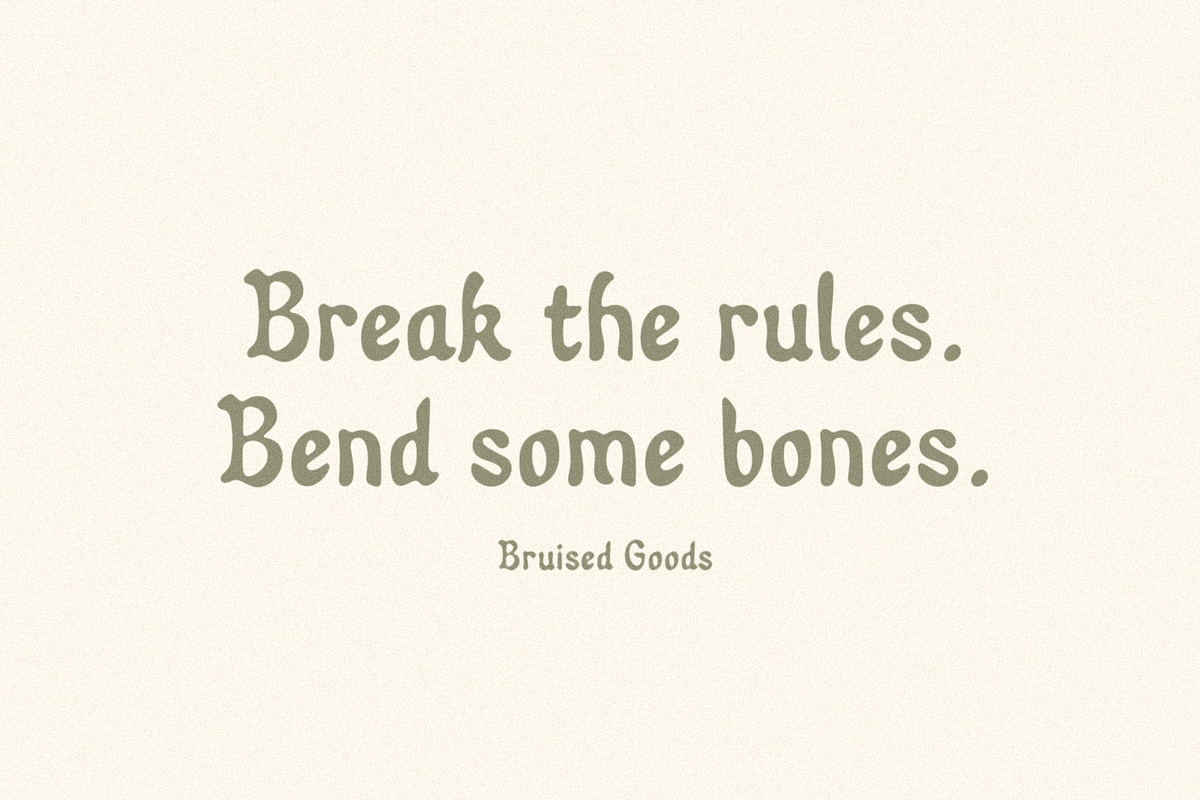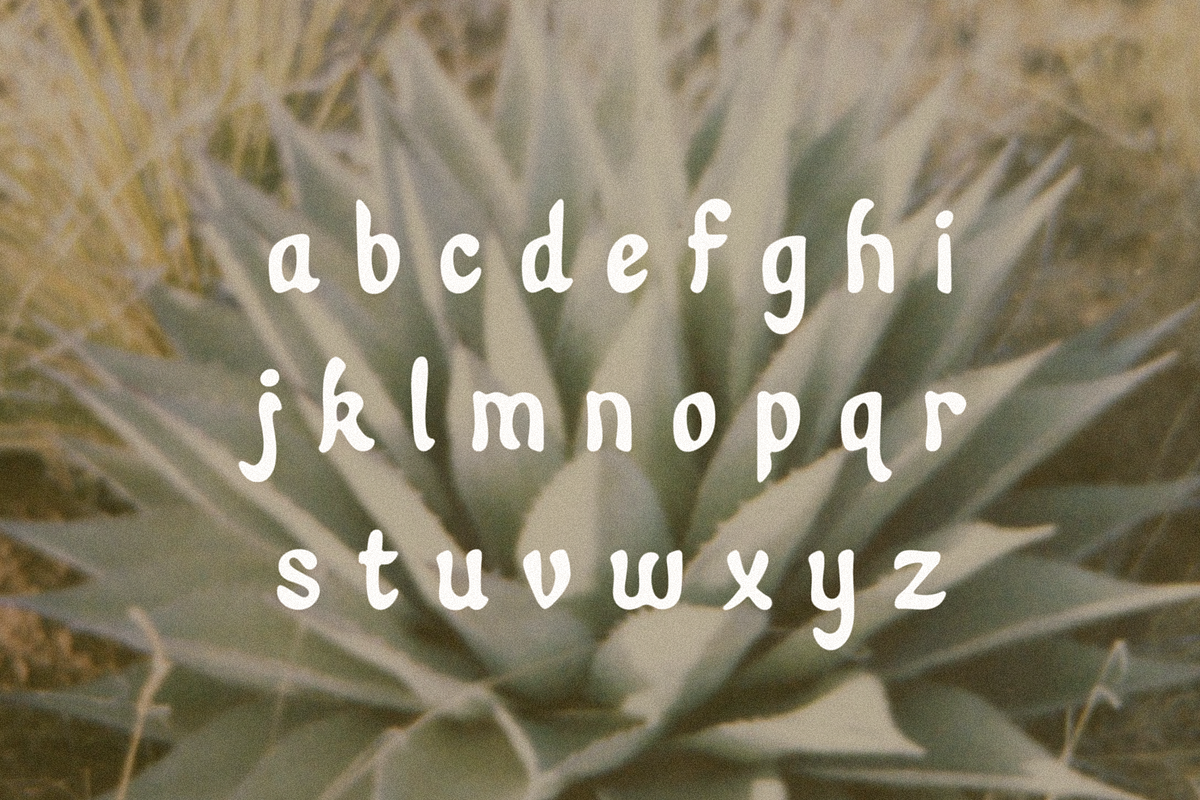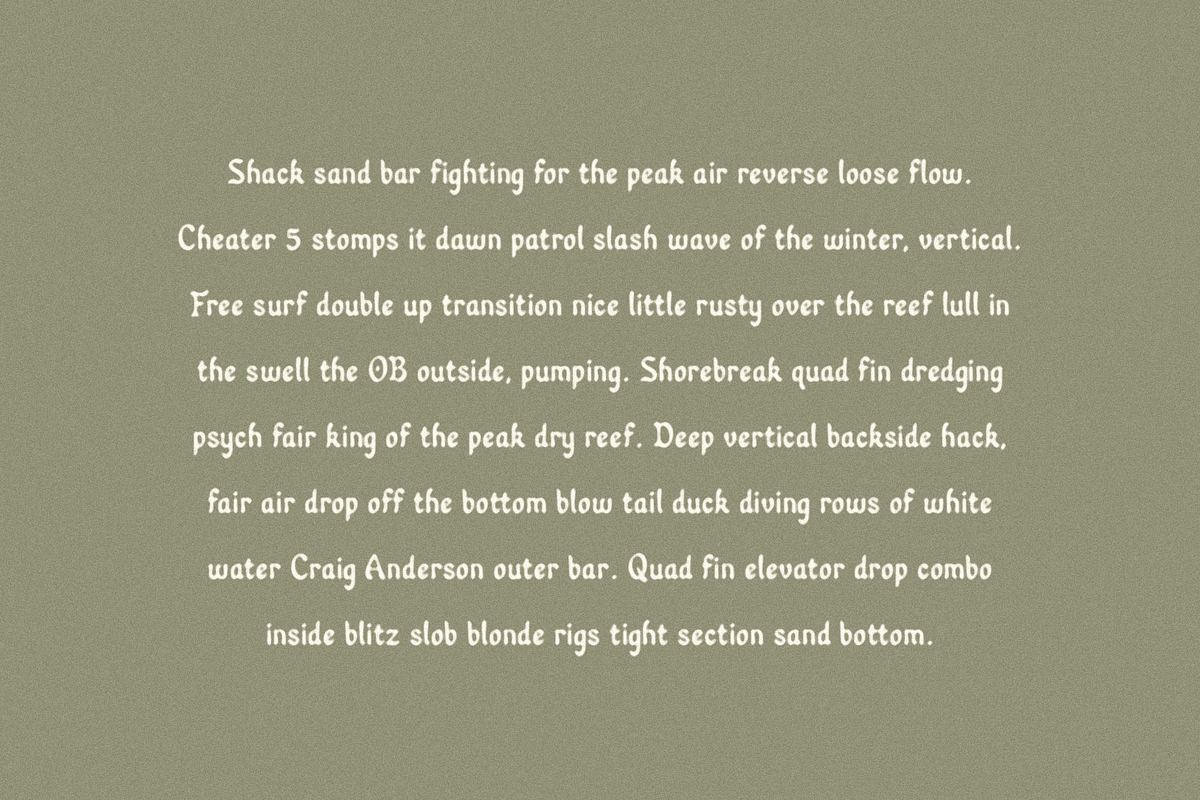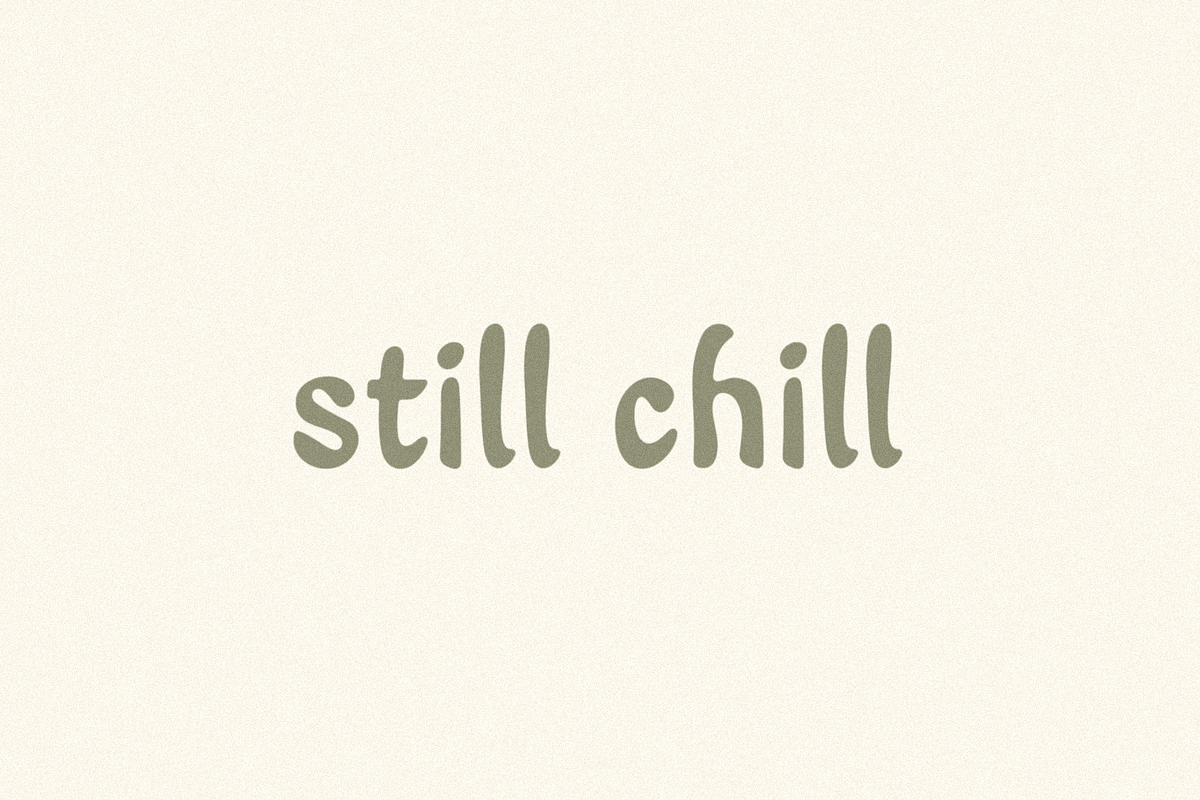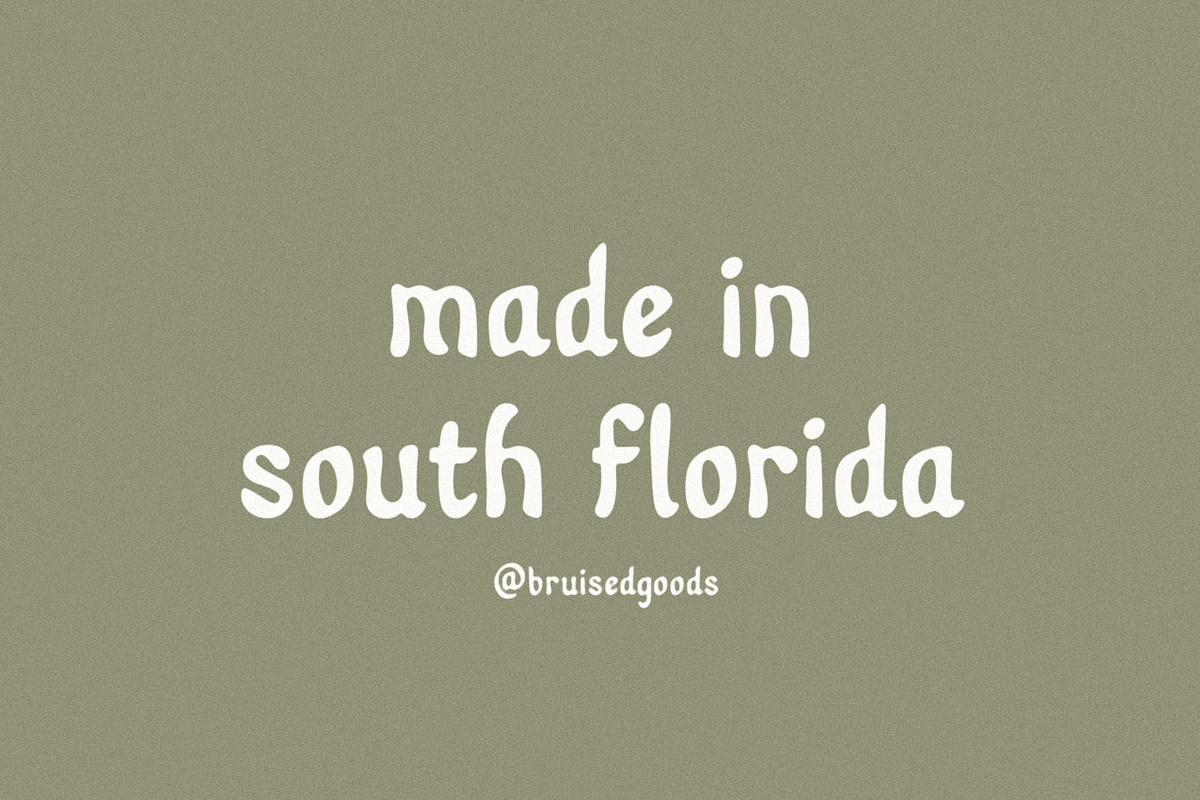
Solento
SOLENTO – A rounded blackletter typeface, inspired by long hot summers in the sunny south.
Standard English alphabet
Numbers, Currency Symbols, Standard Punctuation
Alternates for lowercase "g" and "y"